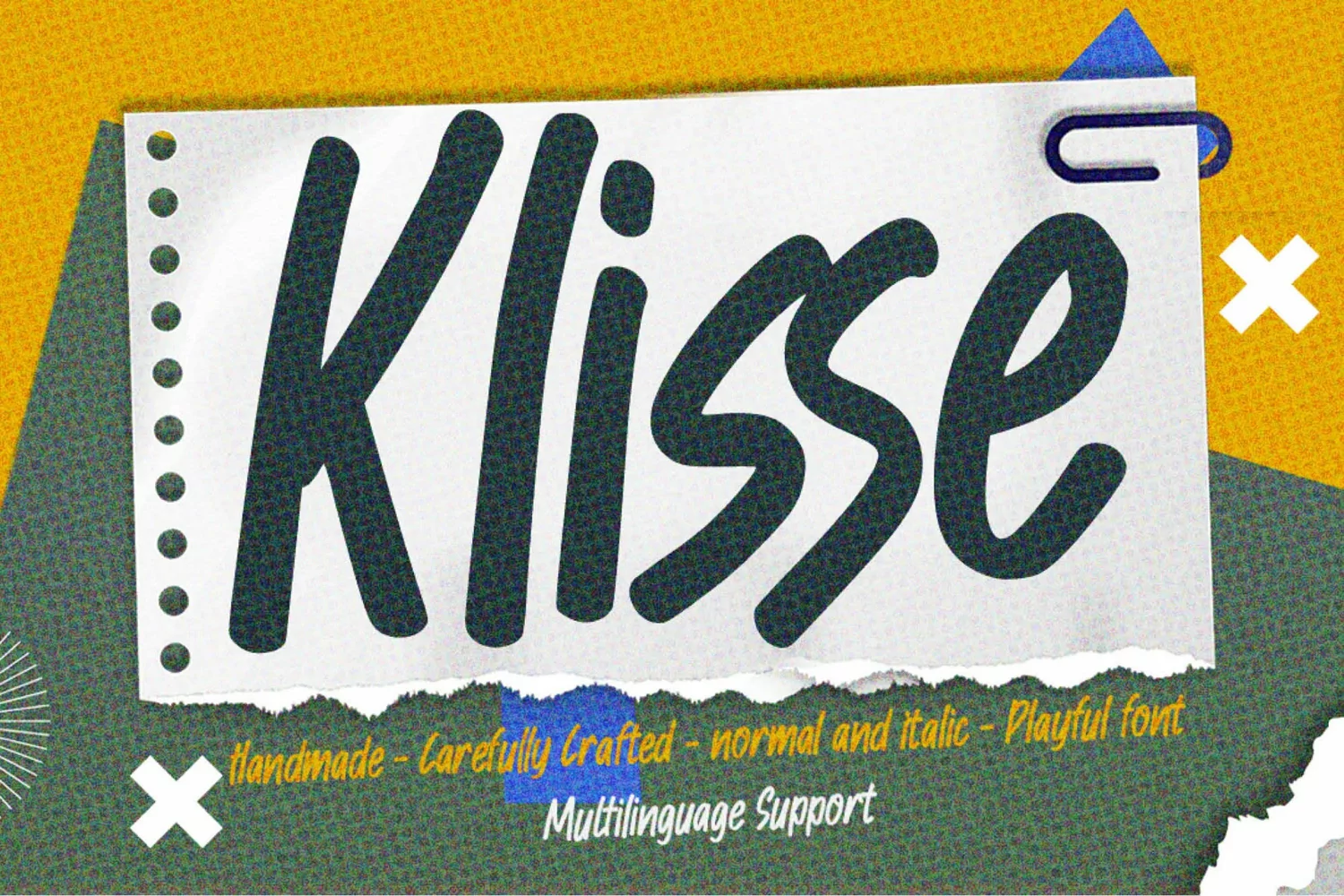
Klisse
Klisse italic
Klisse is Handmade Carefully Playful Font Display Font that will make your designs look modern, unique and fun.
It’s perfect for labels, quotes, posters, DIY projects, branding, packaging, greeting cards, websites, photography overlays, signs, window art, scrapbooking, tags and so much more!
Fonts include multilingual support
Klisse
By Gassstype Studio